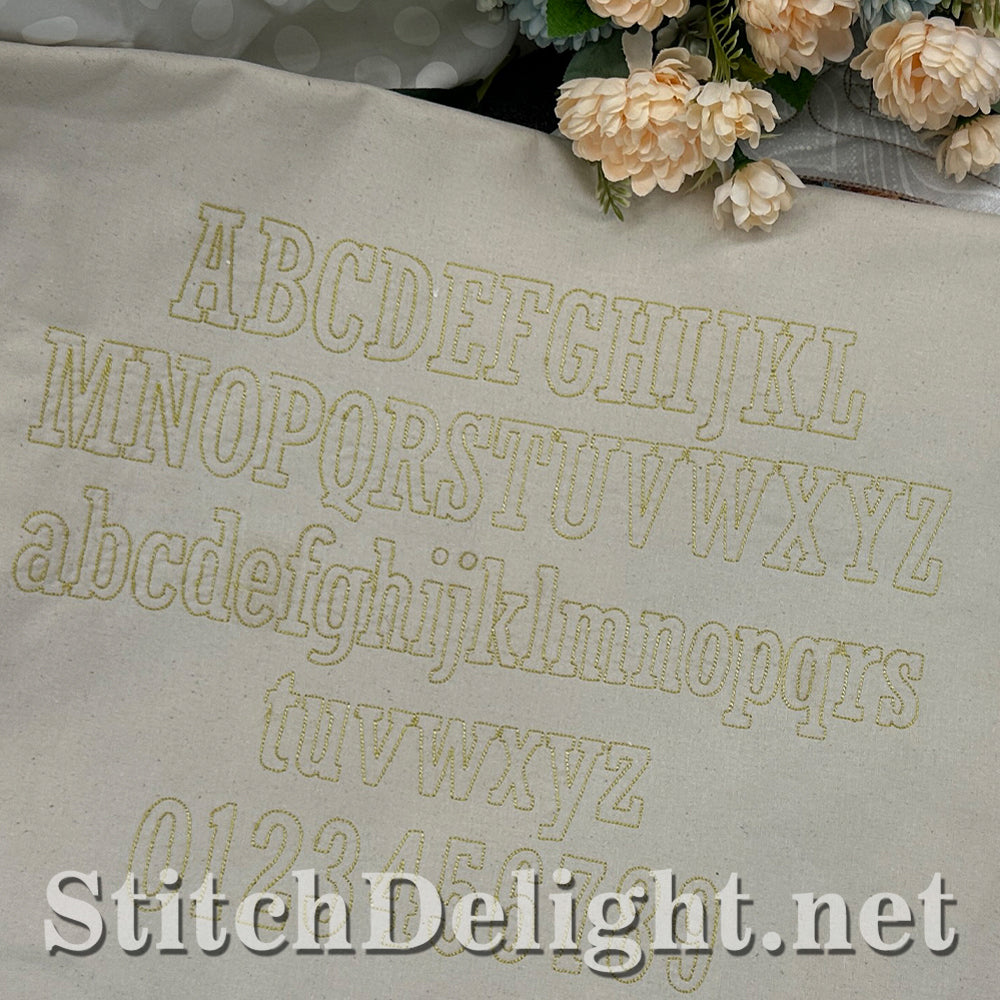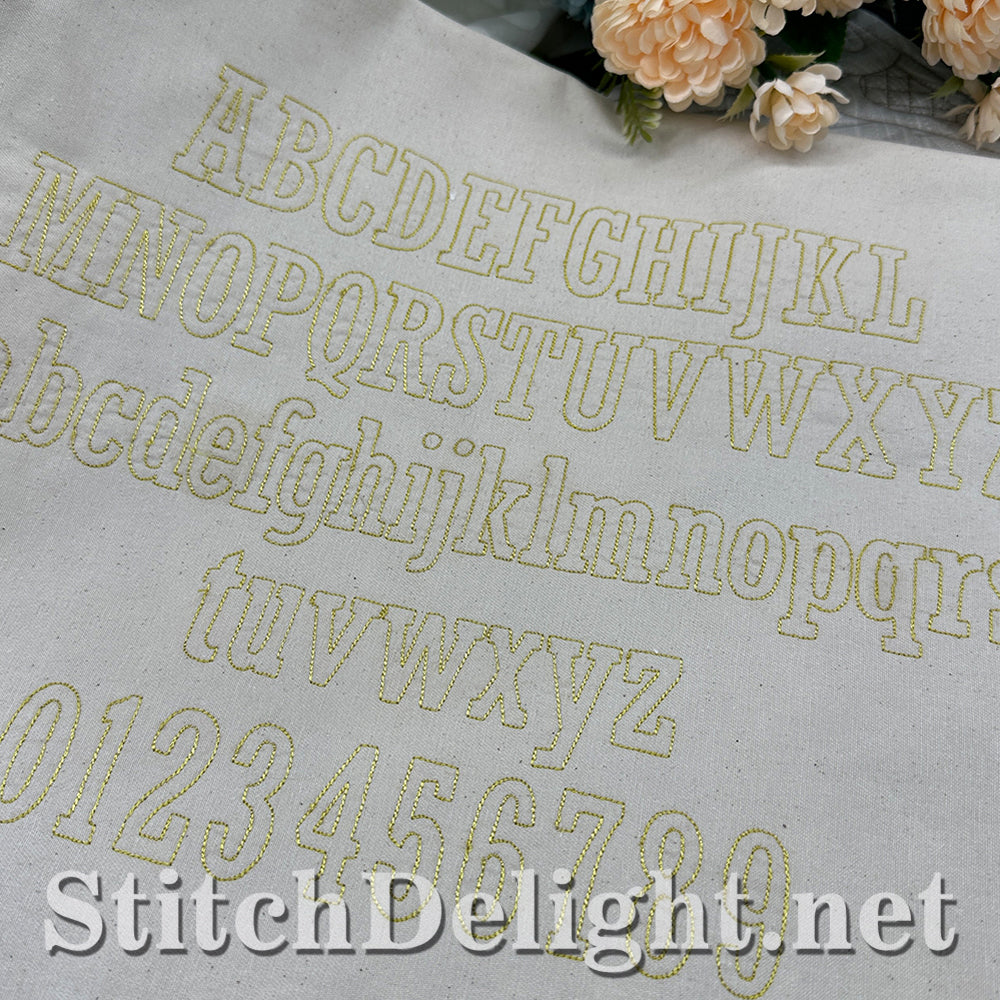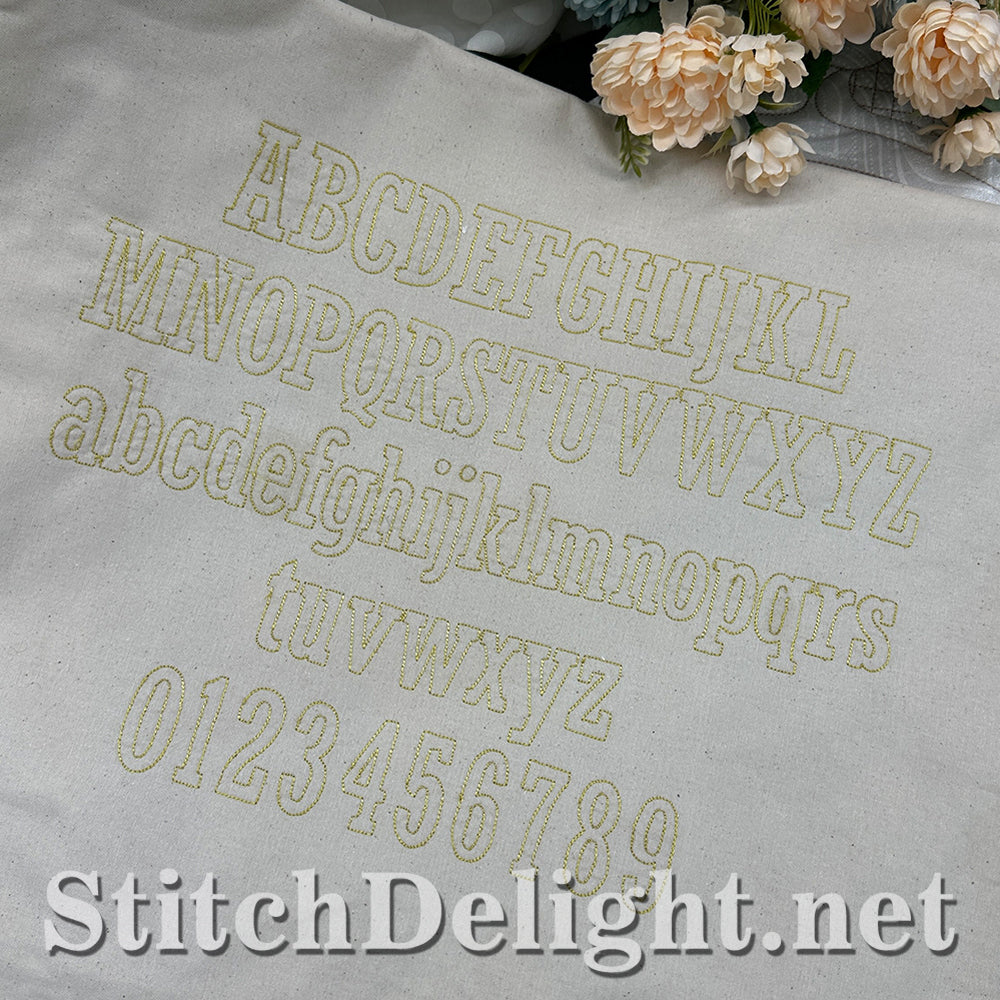
This outline font is done with a backstitch to help it stand out without adding bulky stitches. It has an average height of just 1.6" for uppercase letters and 1.15" for lowercase letters.
Includes, UPPERCASE, lowercase and numbers 0-9